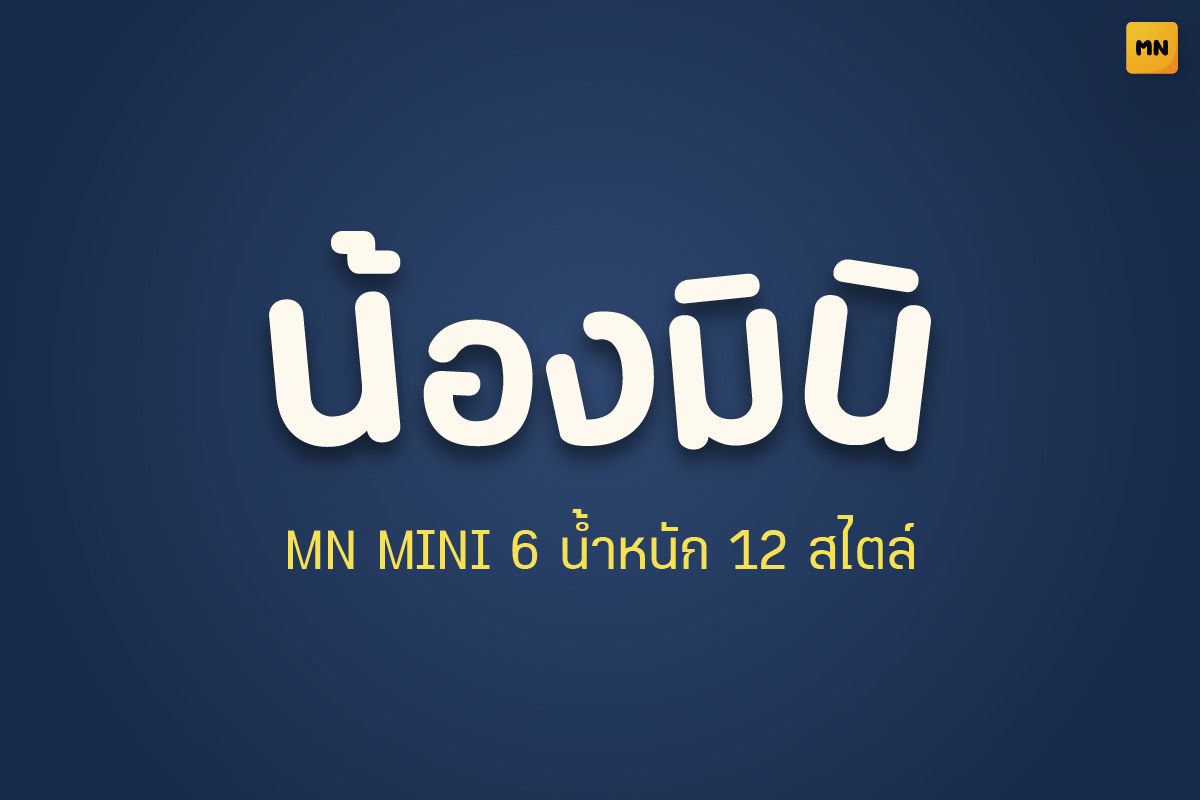
MN MINI Italic
A formal Thai typeface featuring rounded curves with both soft and straight-cut terminals. Balanced, modern, and versatile — suitable for any design from official documents to branding and signage.